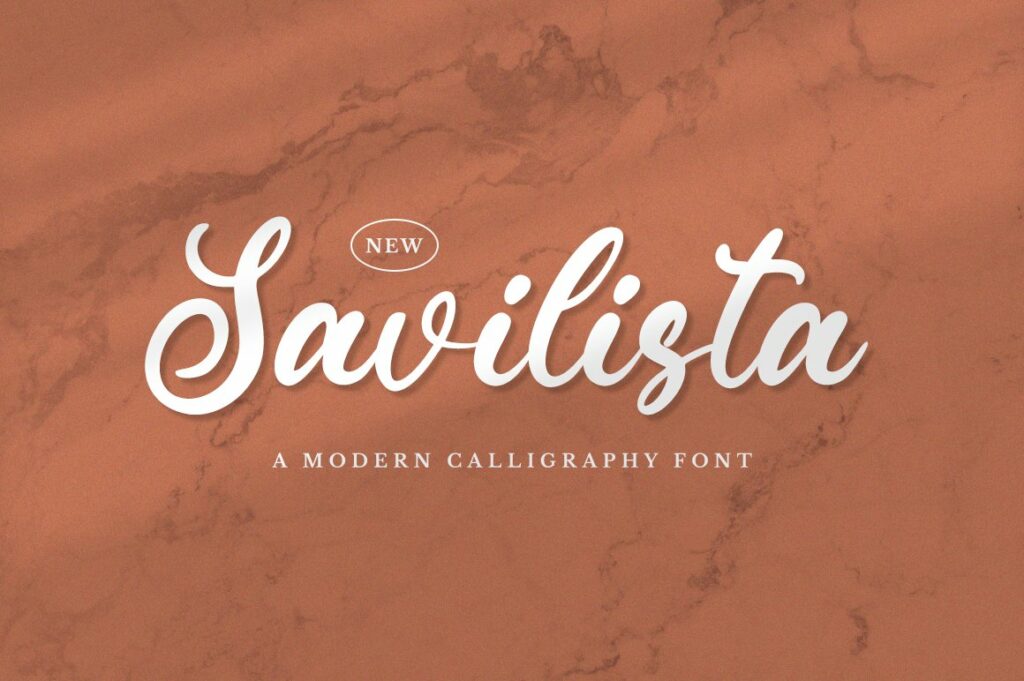
Savilista Font
Savilista is a lovely script font featuring charming, playful characters that seem to dance along the baseline. Add this font to your most creative ideas, and notice how it makes them stand out!